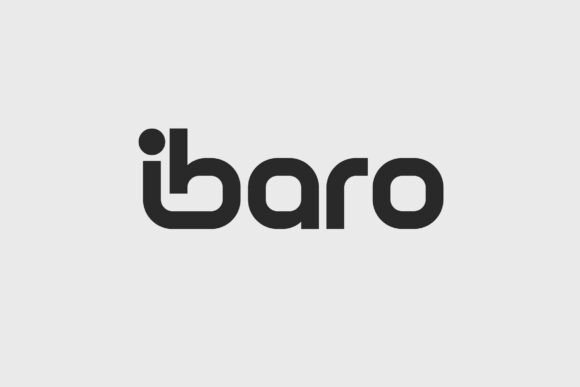
Ibaro Font: A Sleek and Versatile Sans Serif for Strong Brand Identities
In the world of branding and logo design, the choice of font plays a crucial role in shaping the identity and perception of a brand. A well-crafted font can instantly convey a brand’s personality, values, and message, making it a vital element in the branding process. One such font that has gained significant attention in recent times is Ibaro, a sleek and versatile sans serif font designed to create strong, memorable logos and impactful brand identities.
What is Ibaro Font?
Ibaro is a modern sans serif font that boasts a geometric structure, clean lines, and well-balanced proportions. Its sleek and contemporary design makes it an ideal choice for a wide range of industries, including tech, fashion, creative agencies, and corporate branding. The font’s versatility and professional aesthetic have made it a popular choice among designers and brand strategists.
Key Features of Ibaro Font
- Geometric Structure: Ibaro’s geometric structure gives it a modern and sleek appearance, making it perfect for brands that want to convey a sense of innovation and sophistication.
- Clean Lines: The font’s clean lines and minimal ornamentation ensure that it remains legible and clear, even at small sizes.
- Well-Balanced Proportions: Ibaro’s well-balanced proportions create a sense of harmony and stability, making it suitable for brands that want to convey a sense of professionalism and trust.
- Versatility: Ibaro’s versatility makes it suitable for a wide range of applications, from logo design and branding to advertising and digital marketing.
Industries That Can Benefit from Ibaro Font
Ibaro’s versatility and professional aesthetic make it an excellent choice for a variety of industries, including:
- Tech: Ibaro’s modern and sleek design makes it perfect for tech brands that want to convey a sense of innovation and sophistication.
- Fashion: The font’s clean lines and geometric structure make it suitable for fashion brands that want to convey a sense of style and elegance.
- Creative Agencies: Ibaro’s versatility and professional aesthetic make it an excellent choice for creative agencies that want to convey a sense of creativity and expertise.
- Corporate Branding: The font’s well-balanced proportions and clean lines make it suitable for corporate brands that want to convey a sense of professionalism and trust.
Benefits of Using Ibaro Font in Design
Using Ibaro font in design offers several benefits, including:
- Improved Legibility: Ibaro’s clean lines and minimal ornamentation ensure that it remains legible and clear, even at small sizes.
- Enhanced Professionalism: The font’s well-balanced proportions and geometric structure create a sense of harmony and stability, making it suitable for brands that want to convey a sense of professionalism and trust.
- Increased Versatility: Ibaro’s versatility makes it suitable for a wide range of applications, from logo design and branding to advertising and digital marketing.
- Unique Brand Identity: Ibaro’s sleek and contemporary design makes it an excellent choice for brands that want to create a unique and memorable brand identity.
Font Pairing Suggestions for Ibaro
Ibaro can be paired with a variety of fonts to create a unique and harmonious visual identity. Some font pairing suggestions include:
- Montserrat: Montserrat’s geometric structure and clean lines make it an excellent pairing for Ibaro, creating a cohesive and modern visual identity.
- Open Sans: Open Sans’s clean and minimal design makes it a suitable pairing for Ibaro, creating a harmonious and professional visual identity.
- Lato: Lato’s sleek and contemporary design makes it an excellent pairing for Ibaro, creating a unique and memorable visual identity.
Tips for Using Ibaro Font Effectively
To get the most out of Ibaro font, here are some tips for using it effectively:
- Use it consistently: Consistency is key when it comes to branding, so use Ibaro font consistently across all marketing materials and platforms.
- Experiment with font sizes: Ibaro’s versatility makes it suitable for a wide range of font sizes, so experiment with different sizes to find the one that works best for your brand.
- Pair it with other fonts: Ibaro can be paired with other fonts to create a unique and harmonious visual identity, so don’t be afraid to experiment with different font pairings.
In conclusion, Ibaro font is a sleek and versatile sans serif font that is perfect for creating strong, memorable logos and impactful brand identities. Its geometric structure, clean lines, and well-balanced proportions make it suitable for a wide range of industries, from tech and fashion to creative agencies and corporate branding. By using Ibaro font effectively, brands can create a unique and memorable visual identity that sets them apart from the competition.